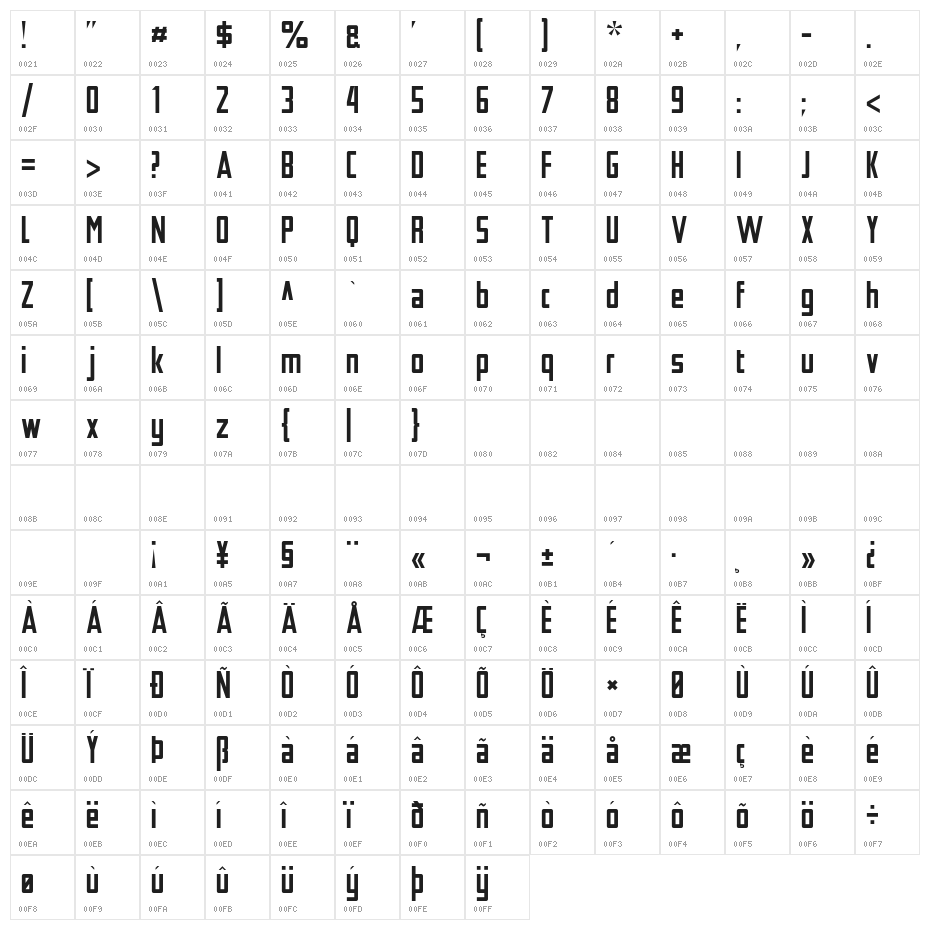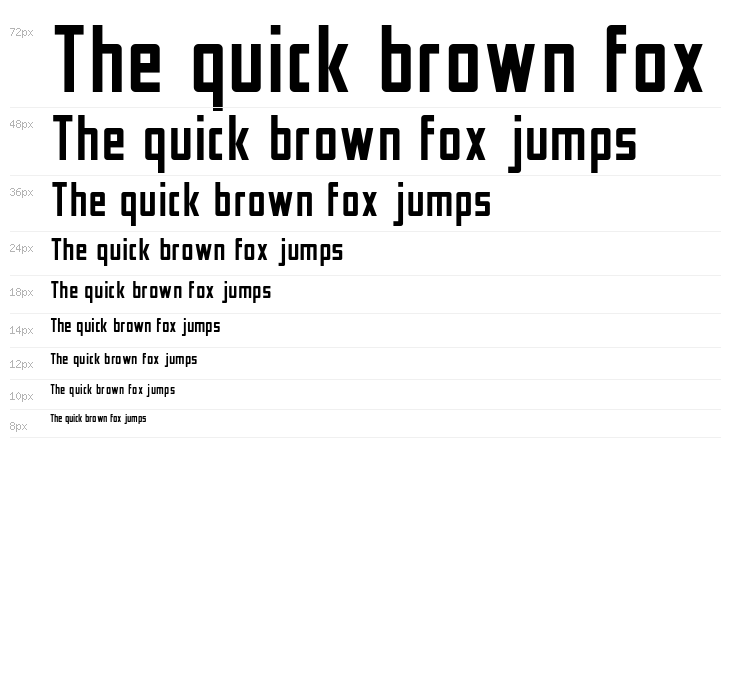
Tschichold Font
Tschichold Description
This font features a bold and geometric design with a strong presence. The characters are constructed with straight lines and sharp angles, giving it a modern and industrial feel. The uppercase letters are tall and commanding, while the lowercase letters maintain a consistent height, enhancing readability. The numerals are equally bold, matching the overall style of the alphabet. Special characters are designed with the same geometric precision, making them stand out. The uniformity in stroke width across all characters contributes to a cohesive and structured appearance.